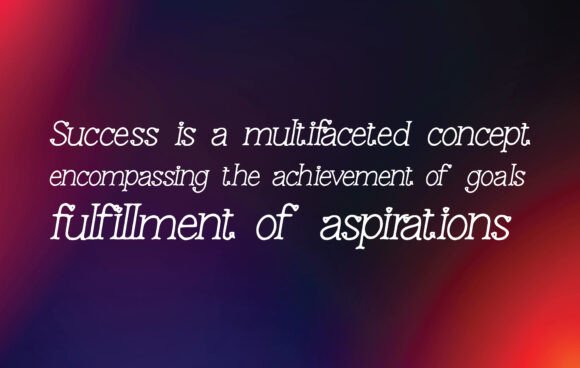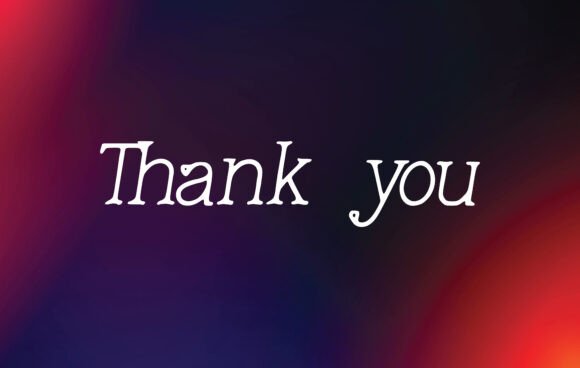
Davina Font: The Ultimate Go-to Favorite for Creative Projects
In the world of typography, finding the perfect font can make all the difference in bringing your creative ideas to life. Whether you’re a designer, crafty DIY enthusiast, or social media influencer, the right font can elevate your project from ordinary to extraordinary. This is where Davina Font comes in – a versatile, eye-catching, and highly legible font designed to be your new go-to favorite.
What Makes Davina Font Stand Out?
Davina Font is crafted with clarity and readability in mind, making it an excellent choice for both titles and body text. Its clean lines and well-balanced design ensure that your message is conveyed with style and personality, regardless of the project. From magazine covers and t-shirts to social media posts, branding materials, wedding invitations, and greeting cards, Davina Font fits seamlessly into any design.
Key Features of Davina Font
- Versatility: Davina Font is designed to be versatile, allowing you to use it across a wide range of projects without compromising on style or legibility.
- Eye-Catching: With its unique design elements, Davina Font is sure to grab attention and leave a lasting impression on your audience.
- Readability: The font’s clear and easy-to-read design makes it perfect for both titles and body text, ensuring that your message is communicated effectively.
- Style and Personality: Davina Font brings a touch of style and personality to any project, helping you to stand out from the crowd.
Davina Font is a dream come true for designers and crafty DIY enthusiasts. Its wide range of applications makes it an ideal choice for:
- Magazine Covers: Create stunning magazine covers that grab attention and draw readers in.
- T-Shirts and Apparel: Design eye-catching t-shirts, hoodies, and other apparel that showcases your brand’s personality.
- Social Media Posts: Elevate your social media game with stylish and engaging posts that stand out in crowded feeds.
- Branding: Establish a strong brand identity with Davina Font, perfect for logos, business cards, and more.
- Wedding Invitations and Greeting Cards: Add a touch of elegance and sophistication to your wedding invitations and greeting cards.
Tips for Using Davina Font
To get the most out of Davina Font, here are a few tips to keep in mind:
- Experiment with Sizes: Davina Font looks great in a variety of sizes, so don’t be afraid to experiment to find the perfect fit for your project.
- Play with Colors: Try pairing Davina Font with different colors to add depth and visual interest to your design.
- Mix and Match: Combine Davina Font with other fonts to create a unique and eye-catching design.
In conclusion, Davina Font is the ultimate go-to favorite for designers, crafters, and anyone looking to add a touch of style and personality to their creative projects. With its versatility, eye-catching design, and high legibility, Davina Font is sure to become a staple in your design toolkit. So why wait? Download Davina Font today and start bringing your creative ideas to life in style!